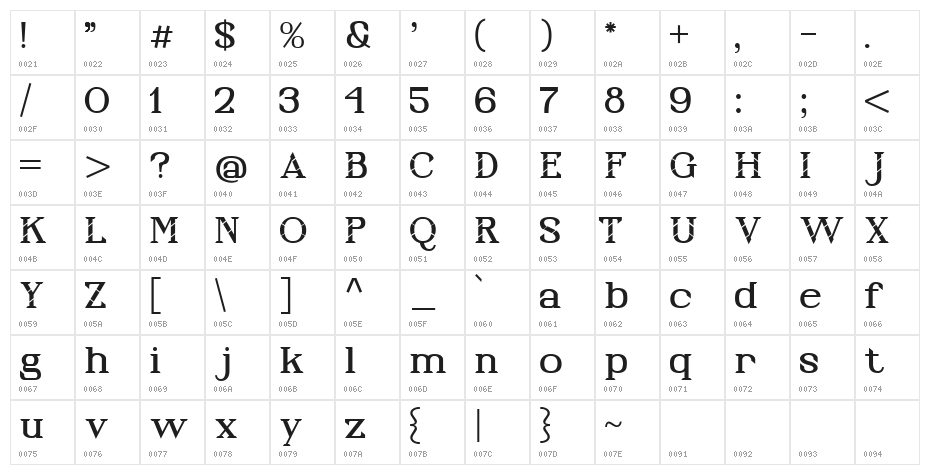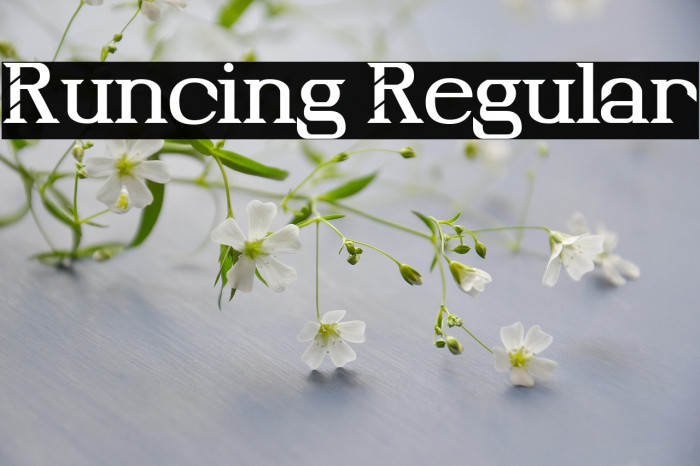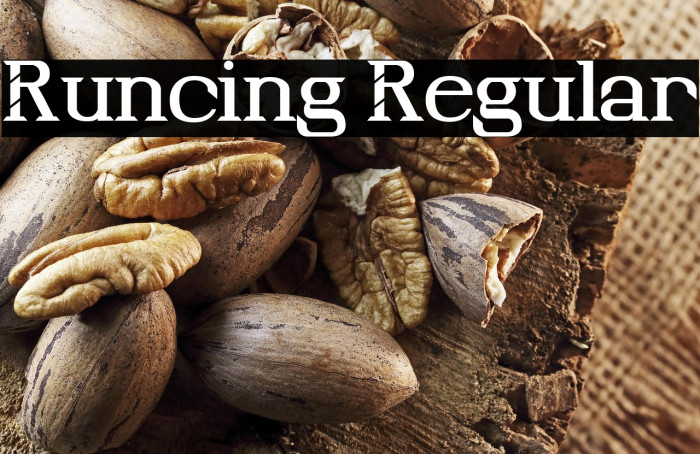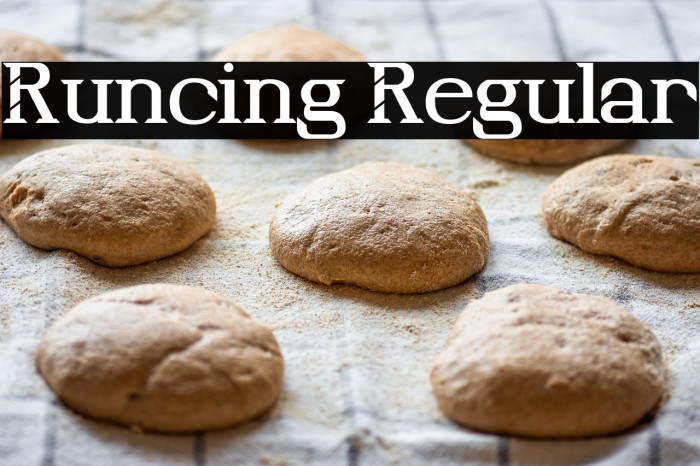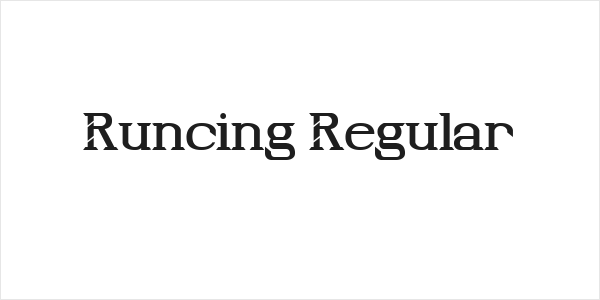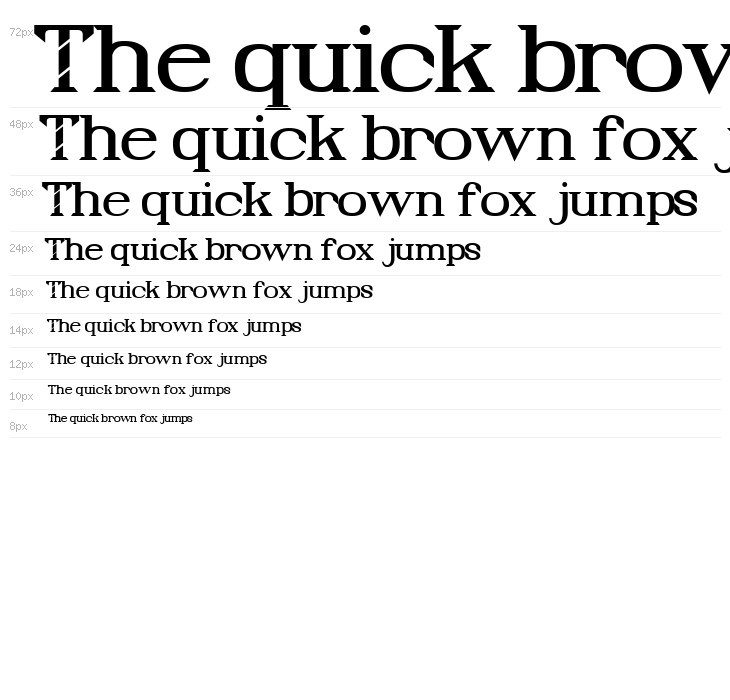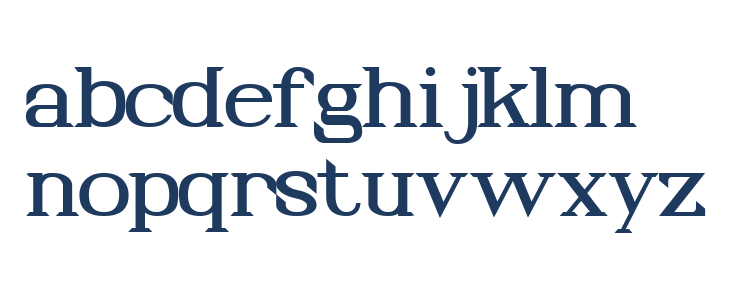
Runcing Regular Font
Runcing Regular Description
This font features a unique blend of modern and classic elements, characterized by its distinct geometric cuts and sharp angles. The uppercase letters exhibit a bold presence with diagonal slashes that create a dynamic visual effect, while the lowercase letters maintain a more traditional serif style with subtle curves. The numbers follow the same bold and angular design, ensuring consistency throughout. Special characters are crafted with the same attention to detail, making them stand out. The overall design is both striking and versatile, suitable for a variety of creative applications.
| Use Case | Headlines, Logos, Branding |
| Proposed Projects | Ideal for branding, advertising, editorial design, and modern web design projects. |